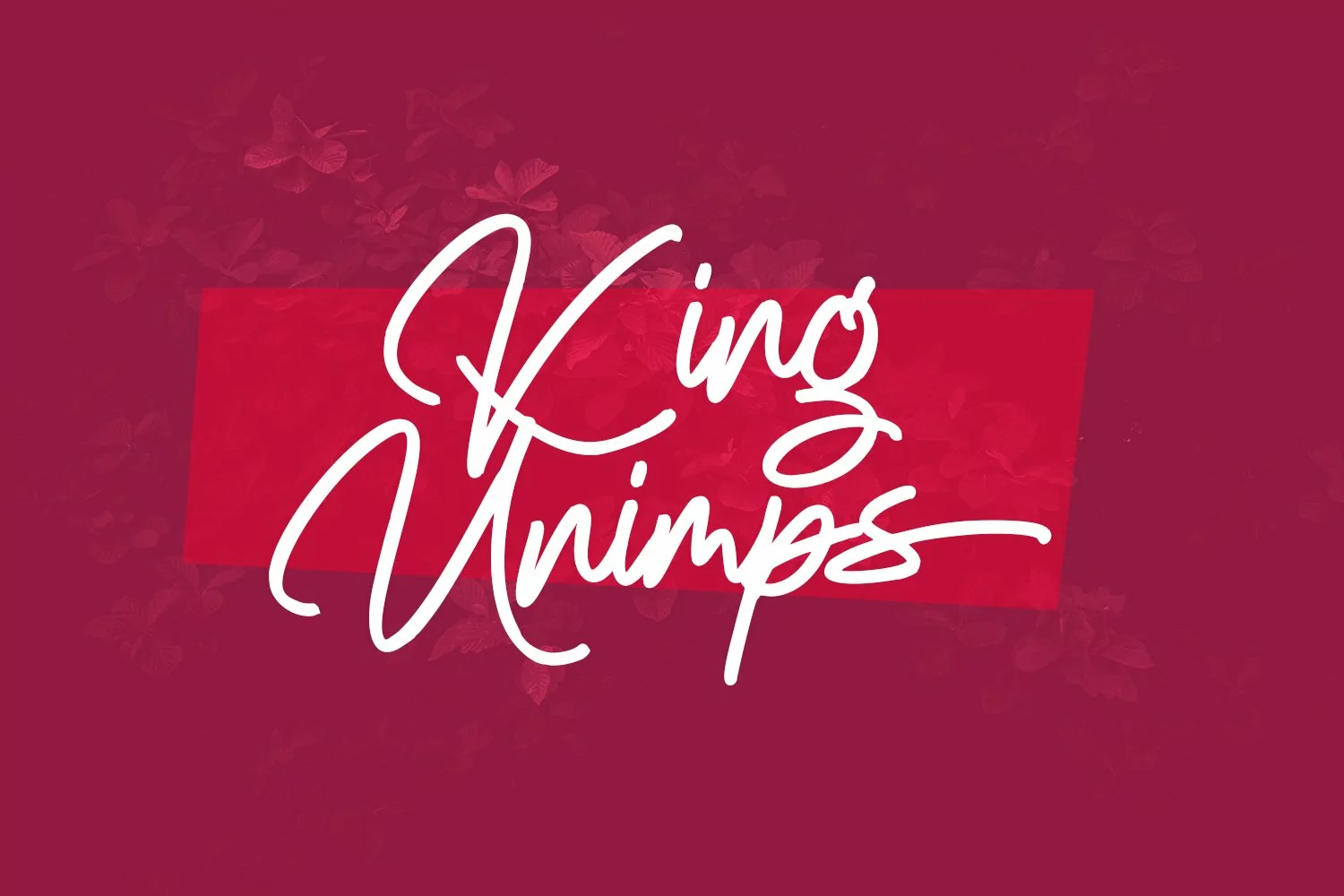
Rello Swelly is a fancy modern script font. With clean mono-line stroke, fun character with a bit of ligatures and alternates. To give you an extra creative work. Rello Swelly font support multilingual more than 100+ language. This font is good for logo design, Social media, Movie Titles, Books Titles, a short text even a long text letter and good for your secondary text font with sans or serif. Make a stunning work with Rello Swelly font.
Rello Swelly